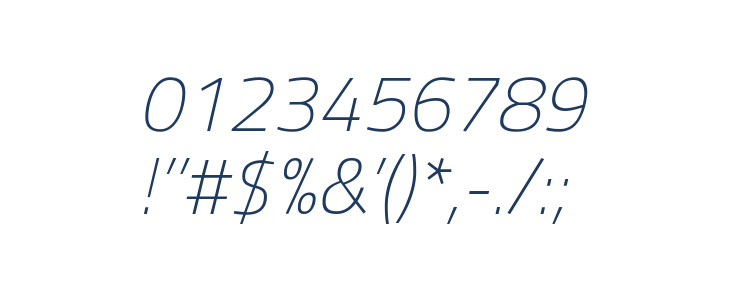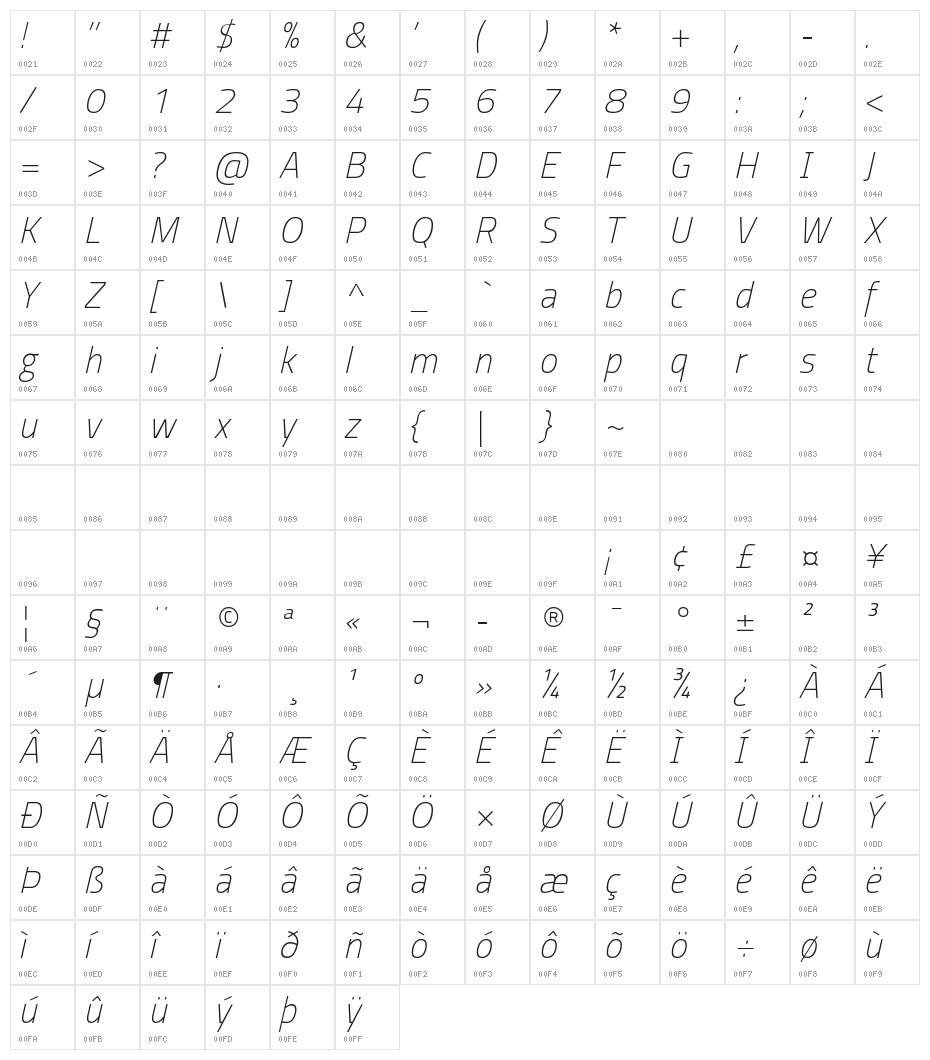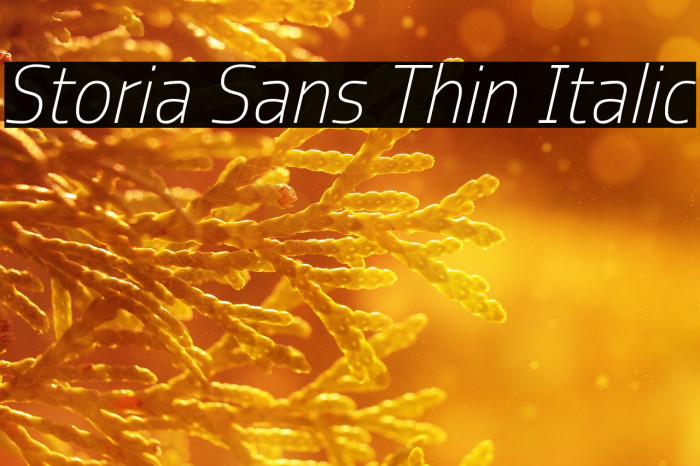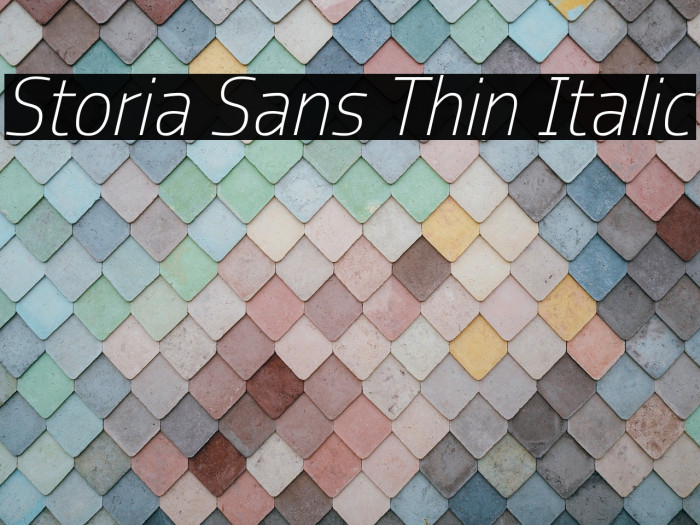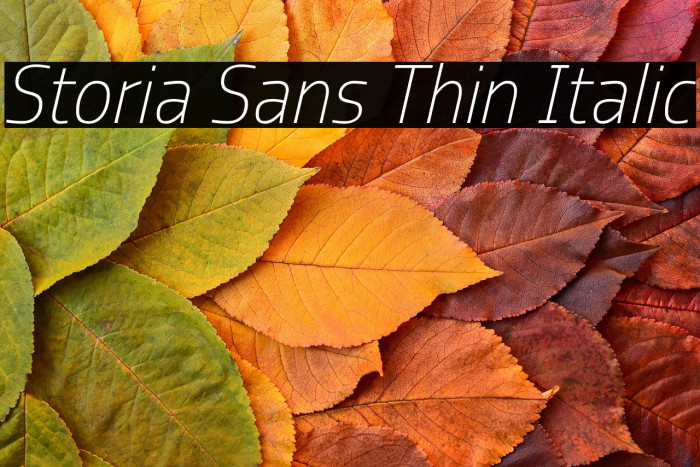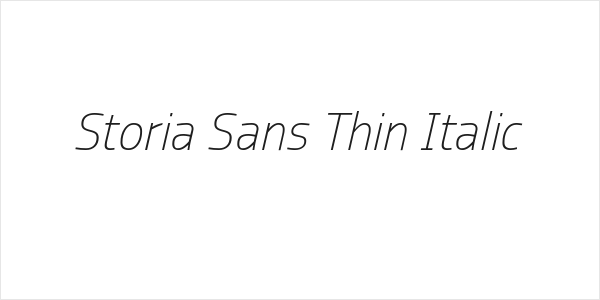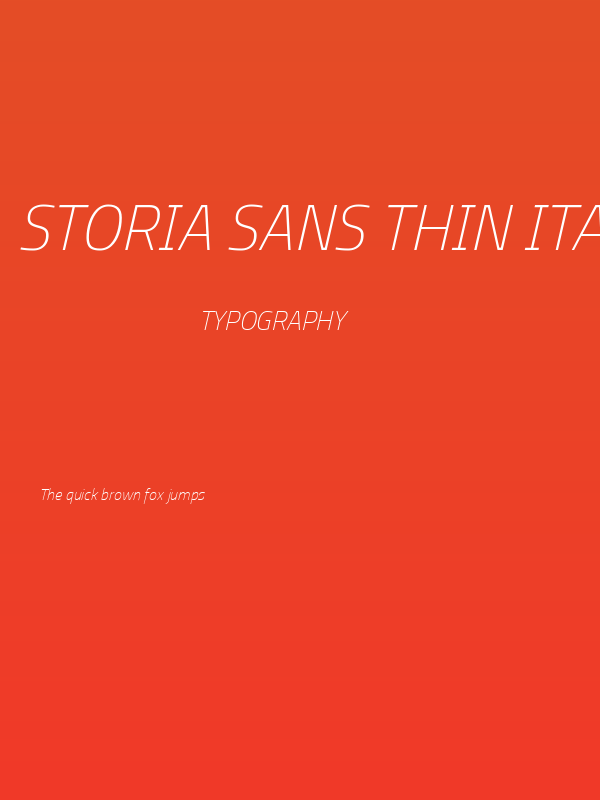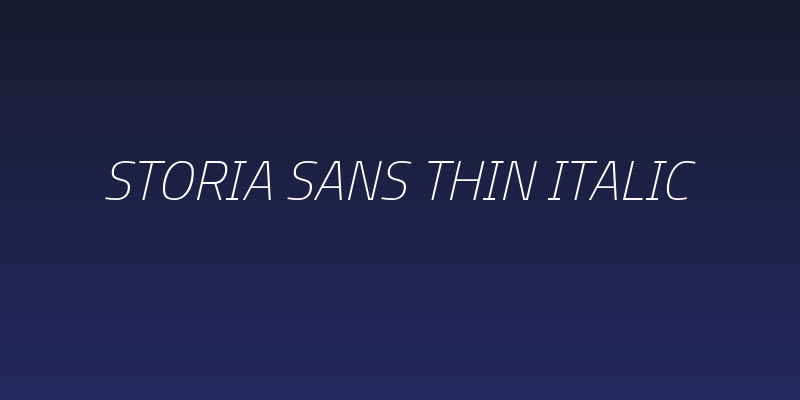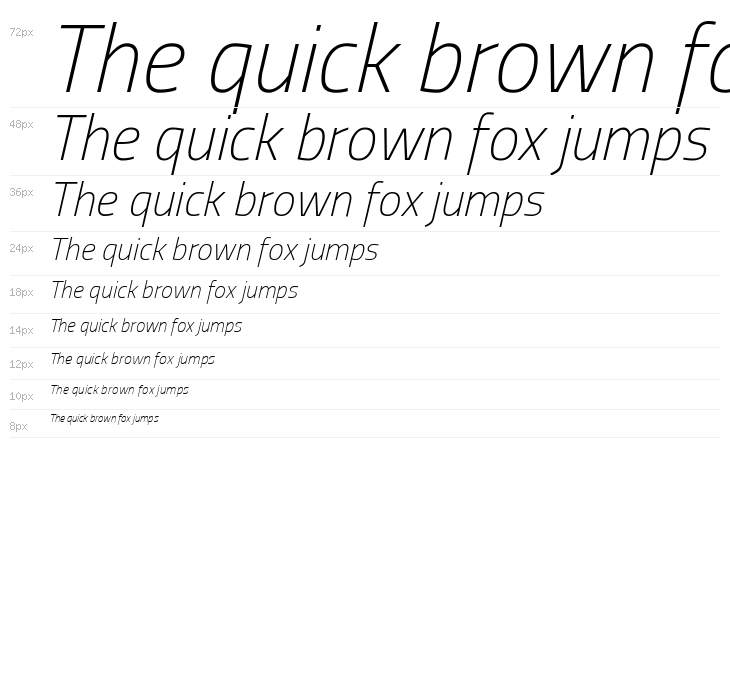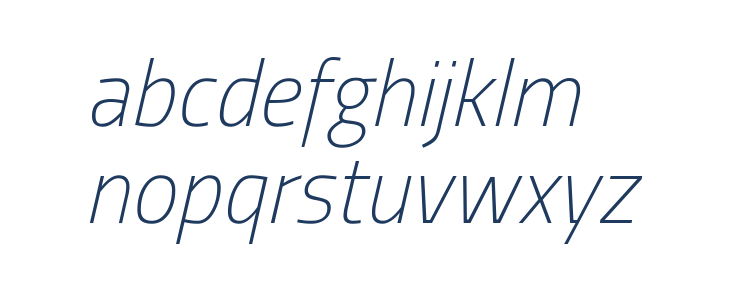
Storia Sans Thin Italic Font
Storia Sans Thin Italic Description
This font features a sleek and modern sans-serif design with a thin, elegant stroke. The italic style adds a dynamic and sophisticated touch, making it ideal for projects that require a contemporary and stylish appearance. The characters are well-proportioned, with a slight slant that enhances readability while maintaining a refined aesthetic. The numerals and special characters are consistent with the overall design, providing a cohesive look across all text elements. This font's minimalistic approach makes it versatile for various design applications.
| Proposed Projects | Ideal for fashion magazines, modern branding, elegant invitations, and minimalist websites. |